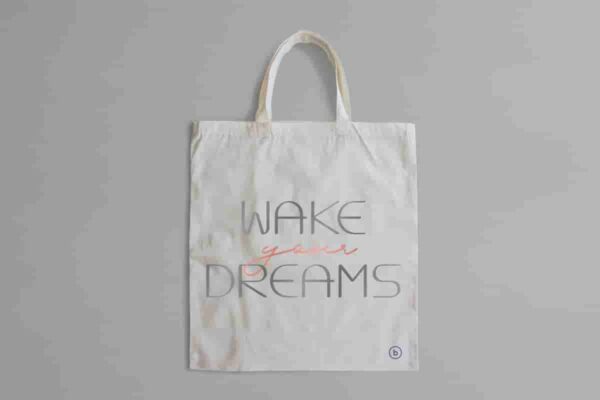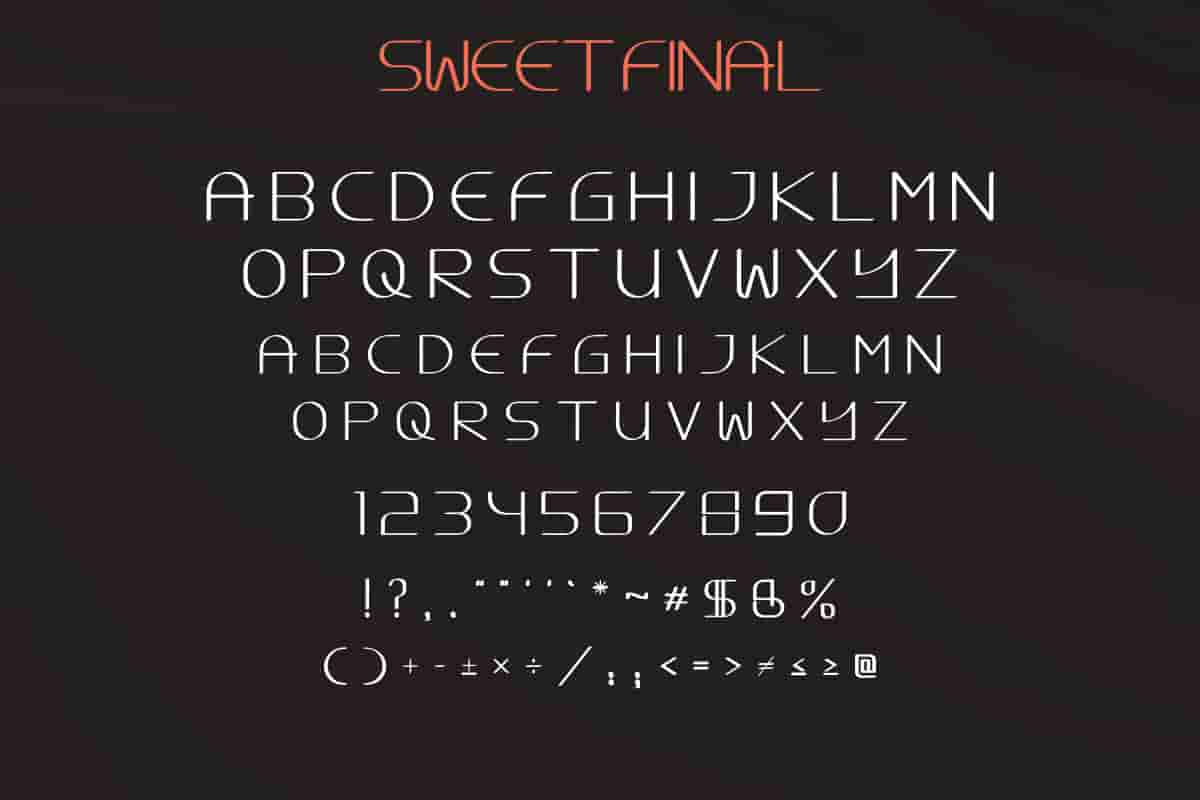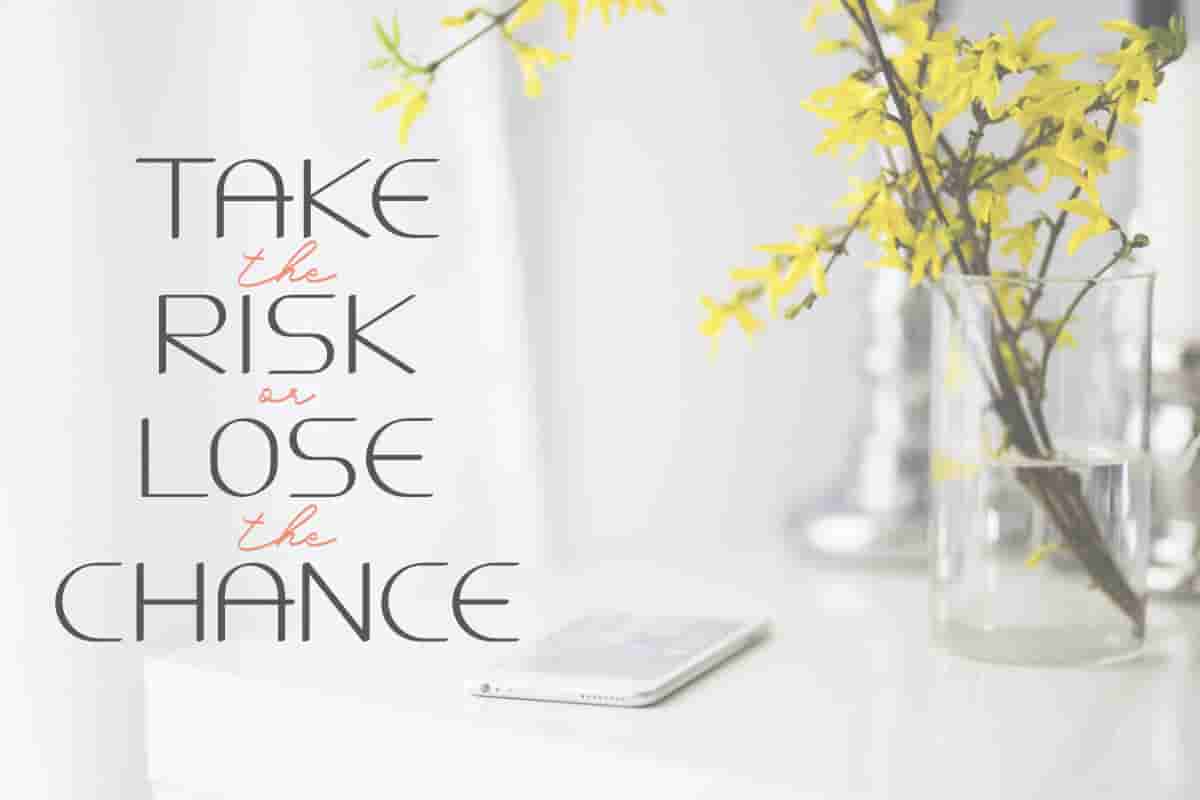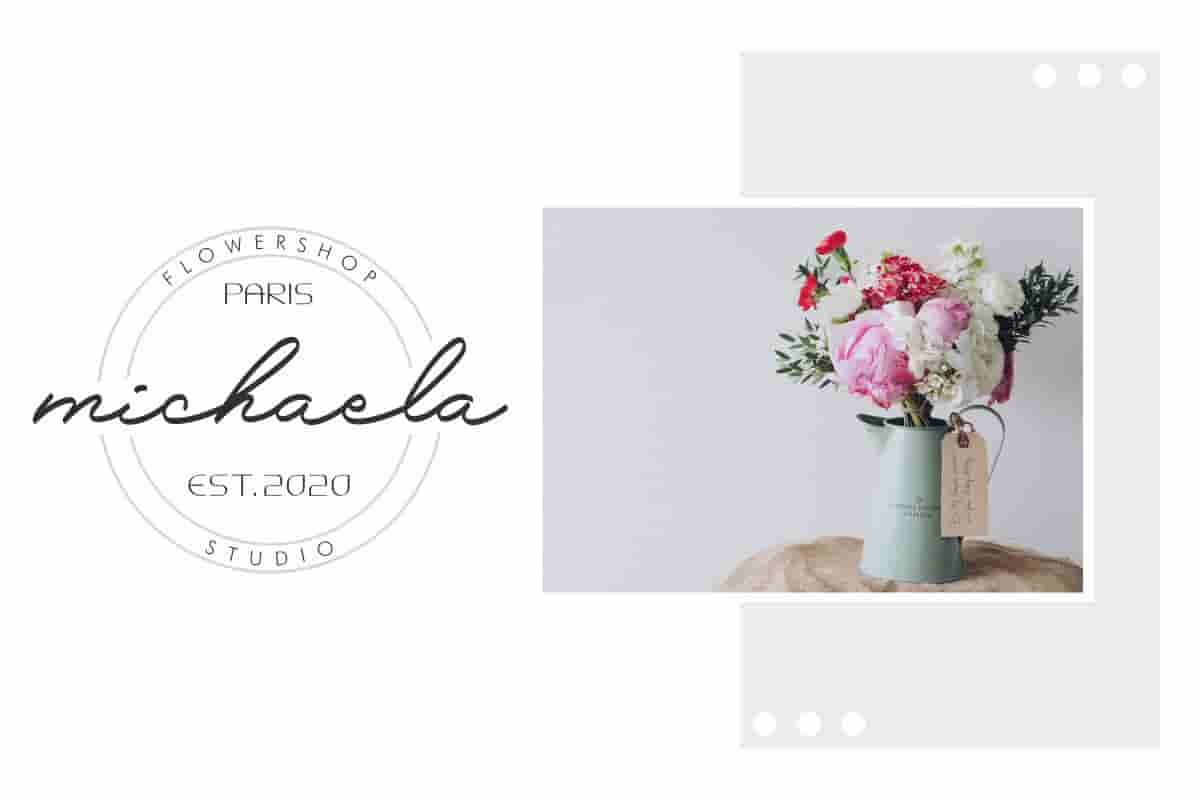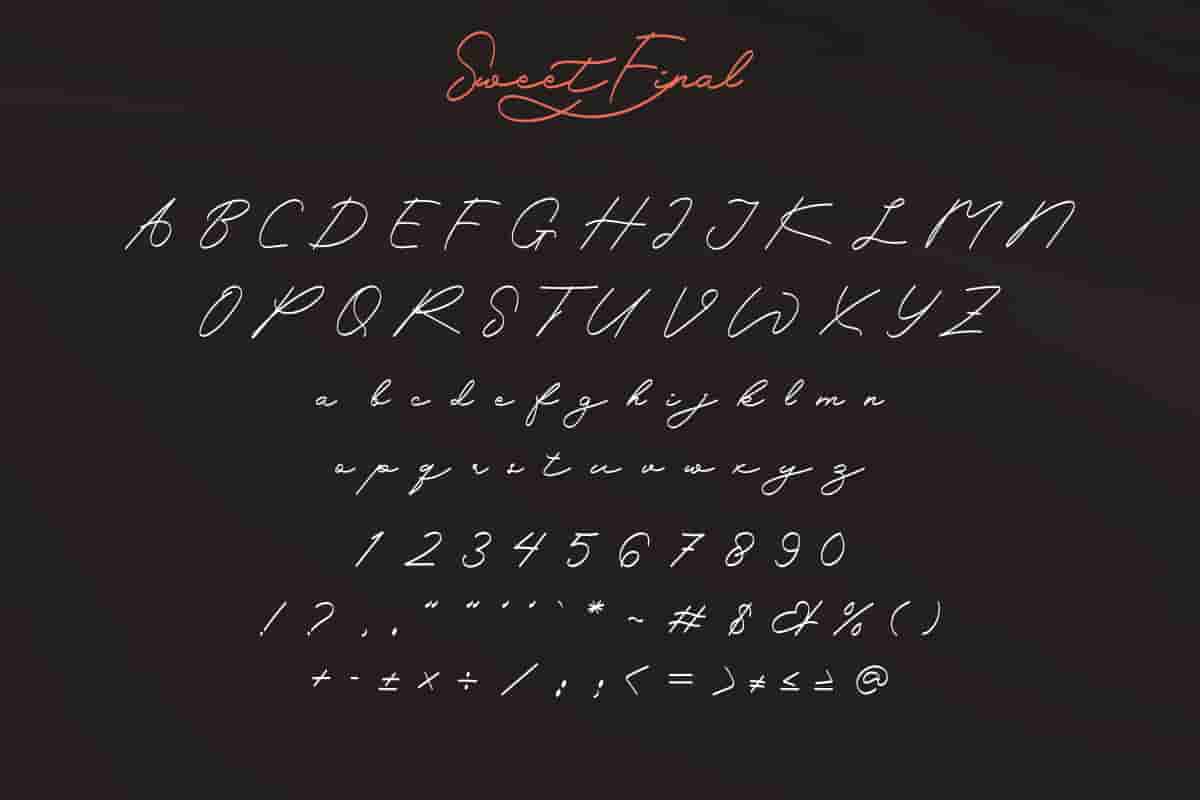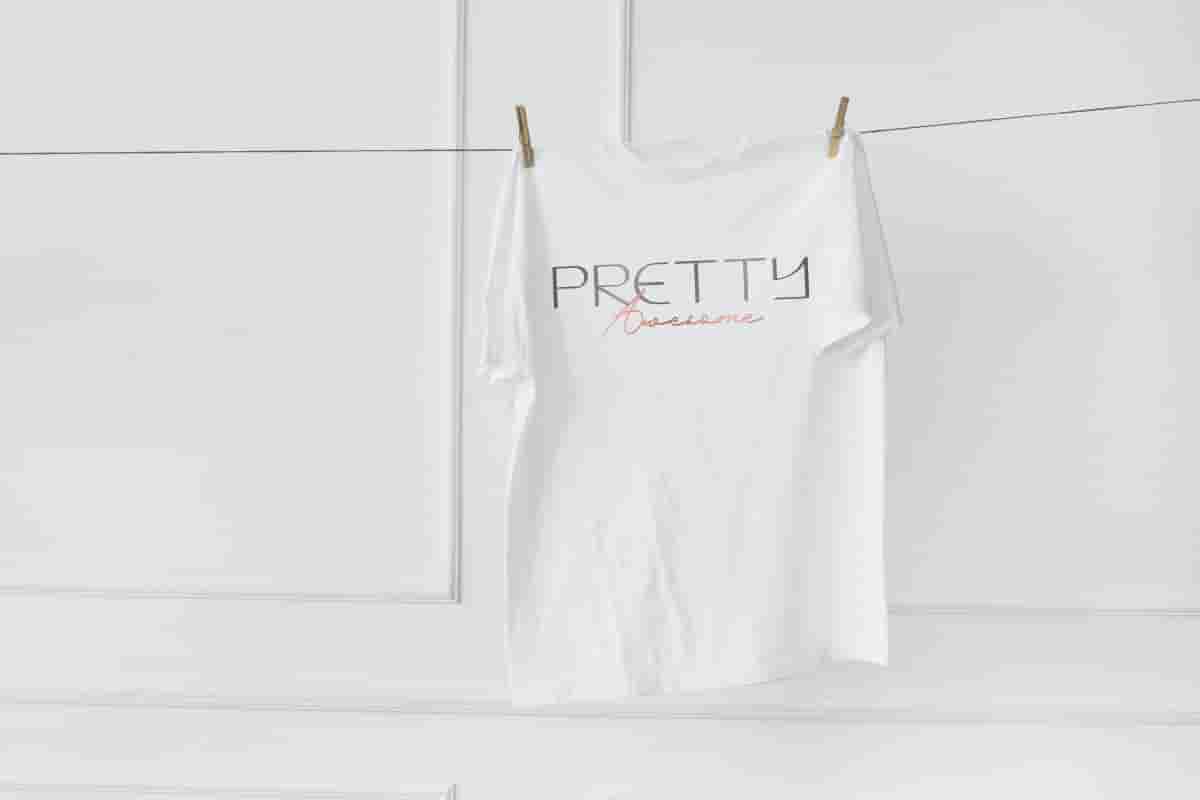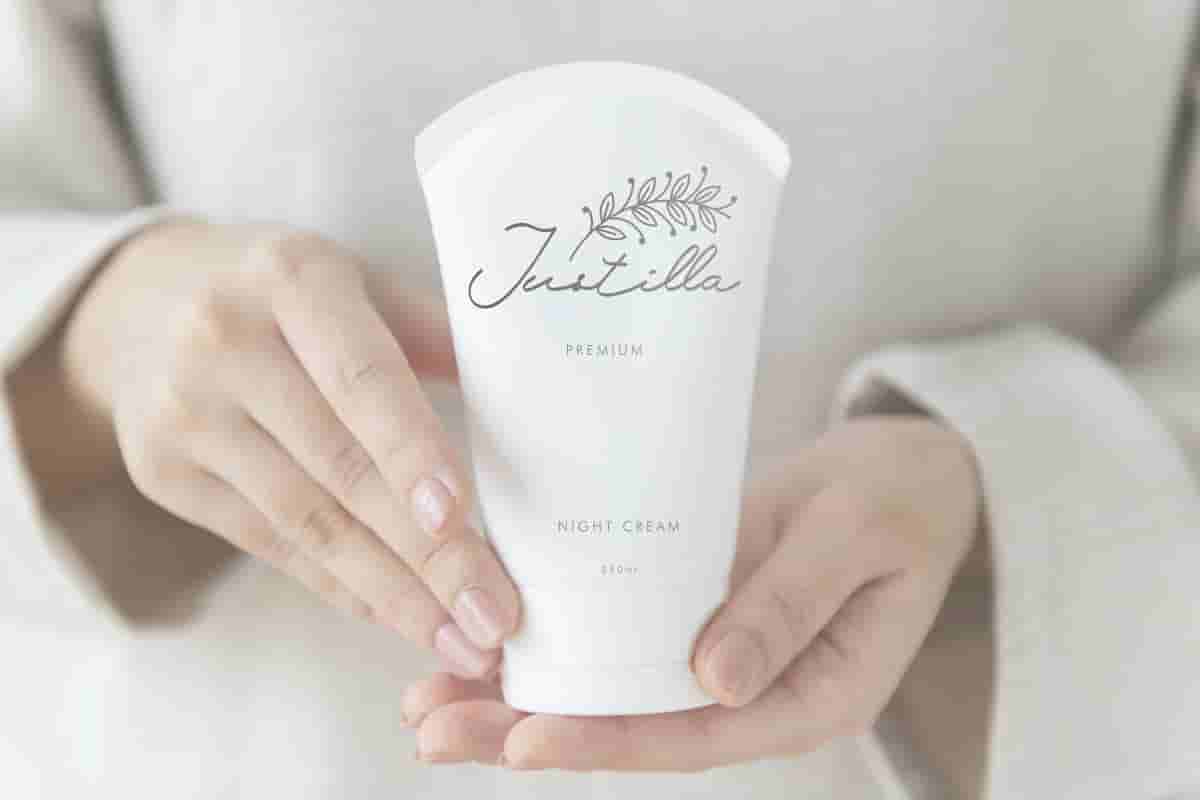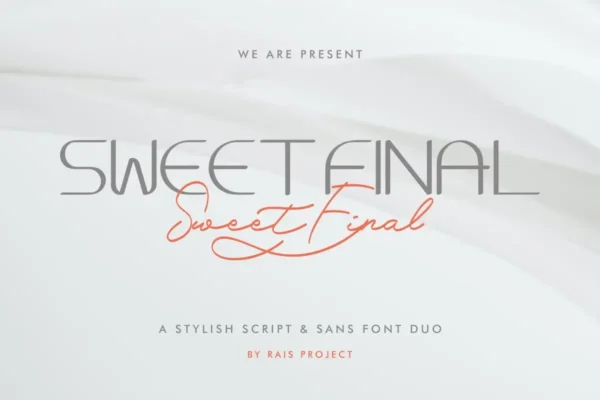
Sweet Final Font
Sweet Final Font is a font duo styles : Sans display font and Signature Script, designed by Rais Project.
Sweet Final Font is a font duo styles : Serif display font and Signature Script, designed by Rais Project. Sweet Final Font is our next font on the market. It has stylish and great style. You can see the demo font below. You can also input any word you want so you can see what it will look like :
Sweet Final Font is remotely made in Bandung and Garut- Indonesia. The font was handcrafted for any your special projects including : headlines, promotion, events, branding, advertising, magazine, signage, invitation, stationery, social media posts, label, or and any projects that need unique strong style. The theme/industries of this font is Wedding, photography, Technology, wedding, restaurant, Magazine, Music, retail etc
Sweet Final Script Font includes full set of gorgeous uppercase and lowercase letters, numerals, a large range of punctuation and ligatures. On the otherhand, the Sweet Final Sans Font has only awesome UPPERCASE characters. Remember, Sweet Final Fonts have two different styles : Sans Display and Calligraphy Script